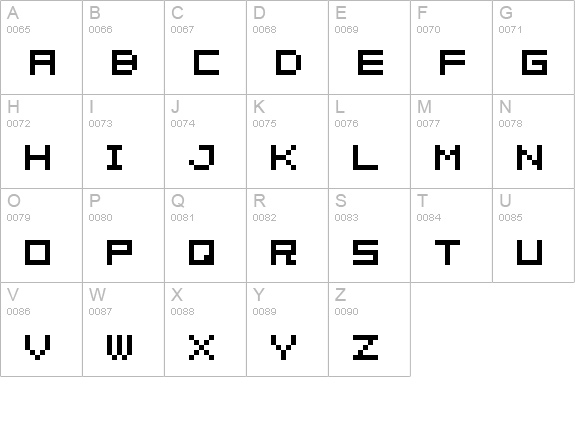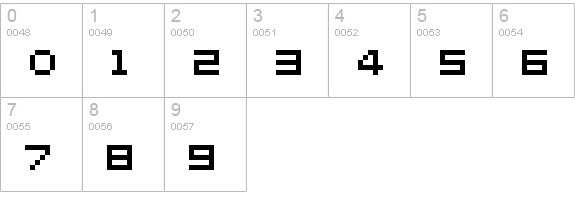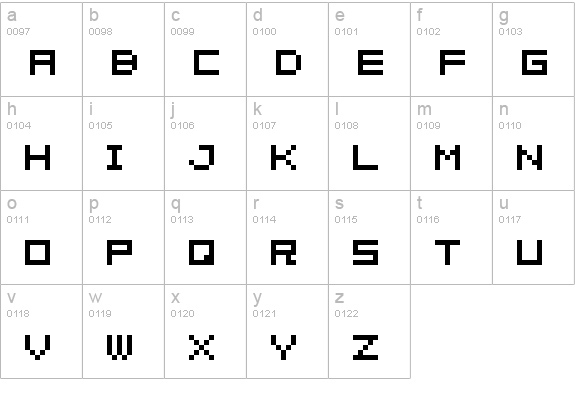
The 04b08 font is a modern and sleek typeface that exudes a sense of contemporary style and elegance. With its clean lines and sharp edges, this font is perfect for adding a touch of sophistication to any design project. Whether you're creating a sleek logo, eye-catching poster, or stylish website, the 04b08 font is sure to make a statement. Best of all, this versatile font is available for free download at FontsMarket.com. So you can easily add this stylish typeface to your font collection without breaking the bank. Don't miss out on the opportunity to enhance your designs with the 04b08 font today!